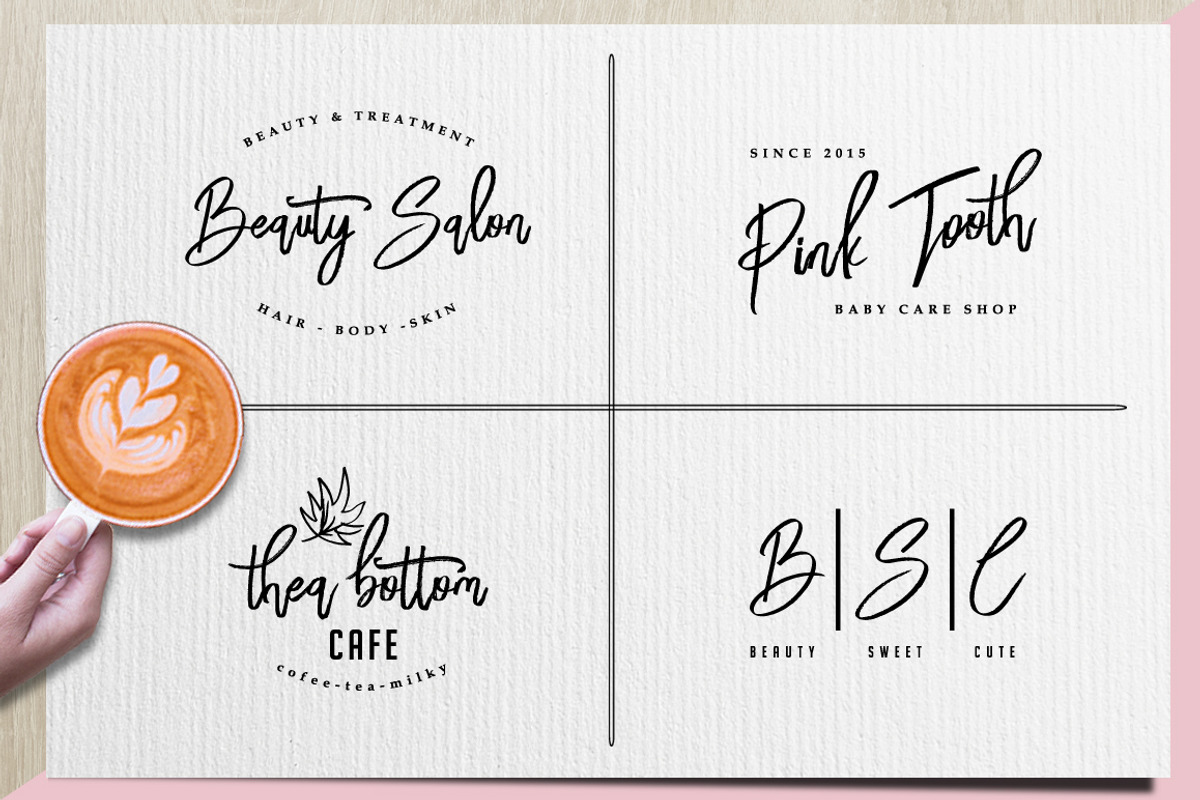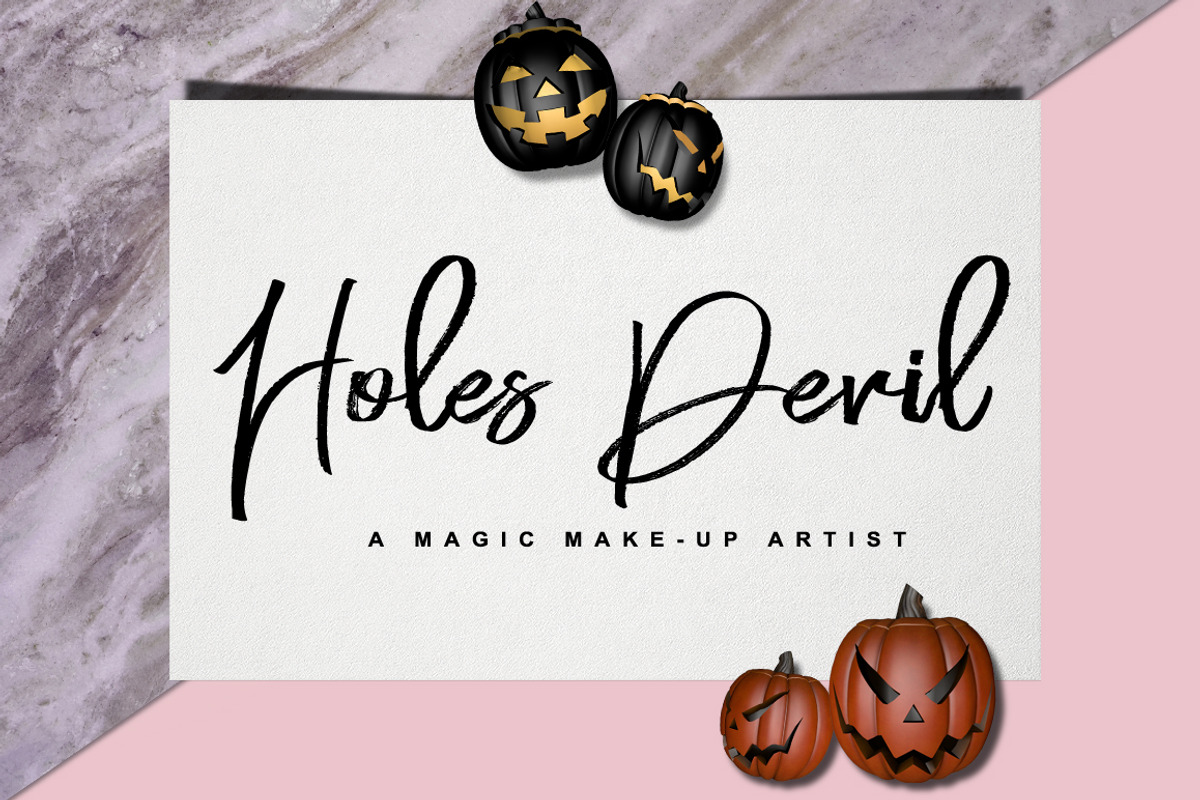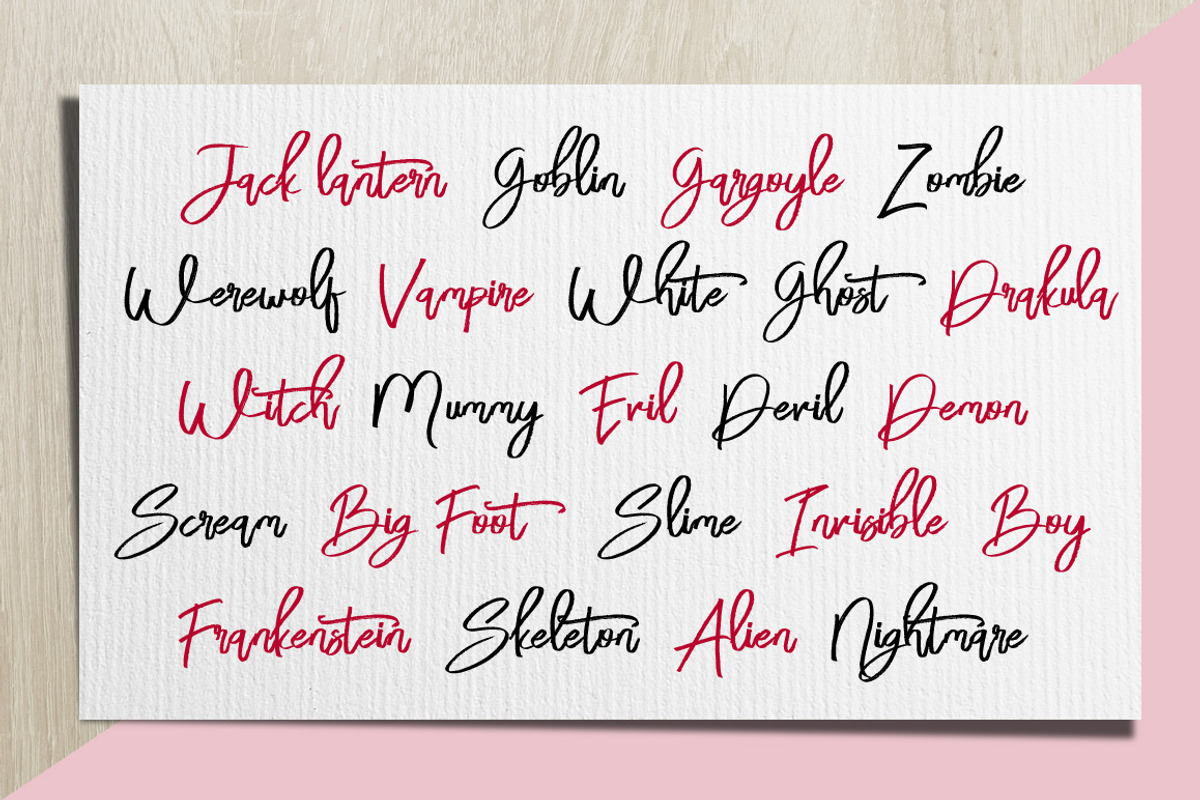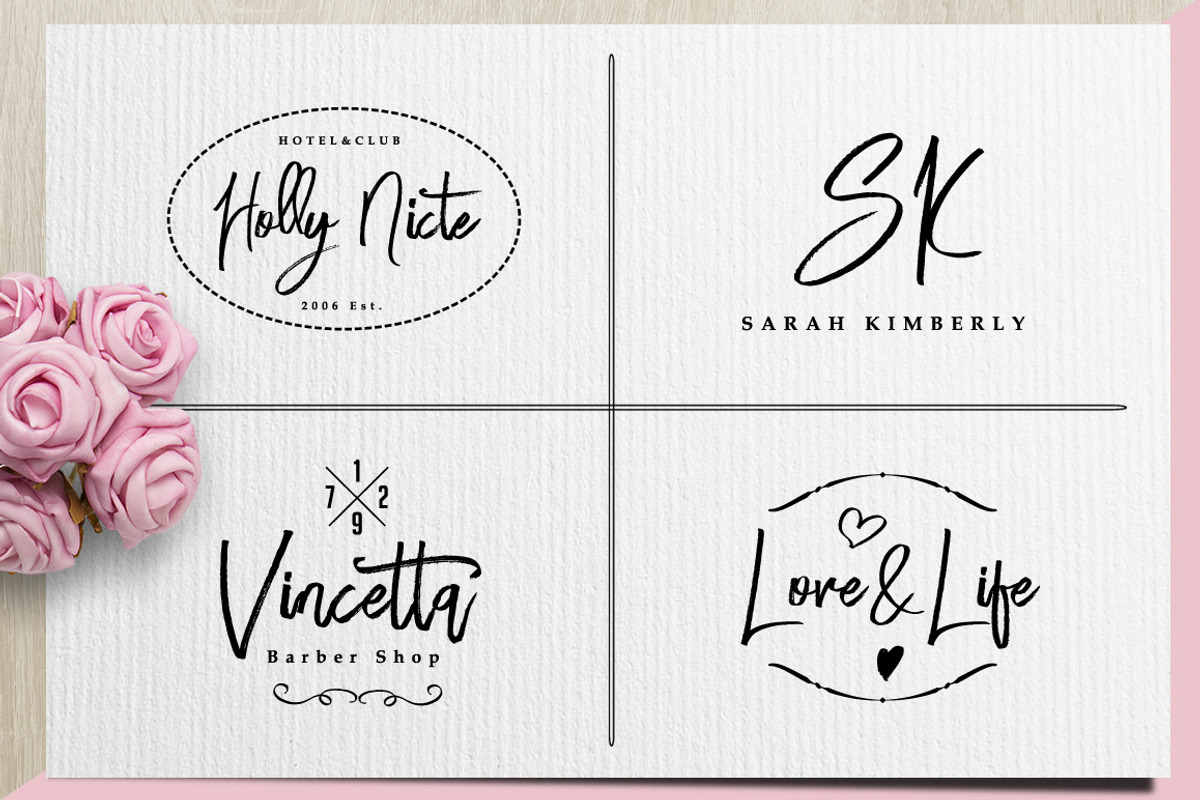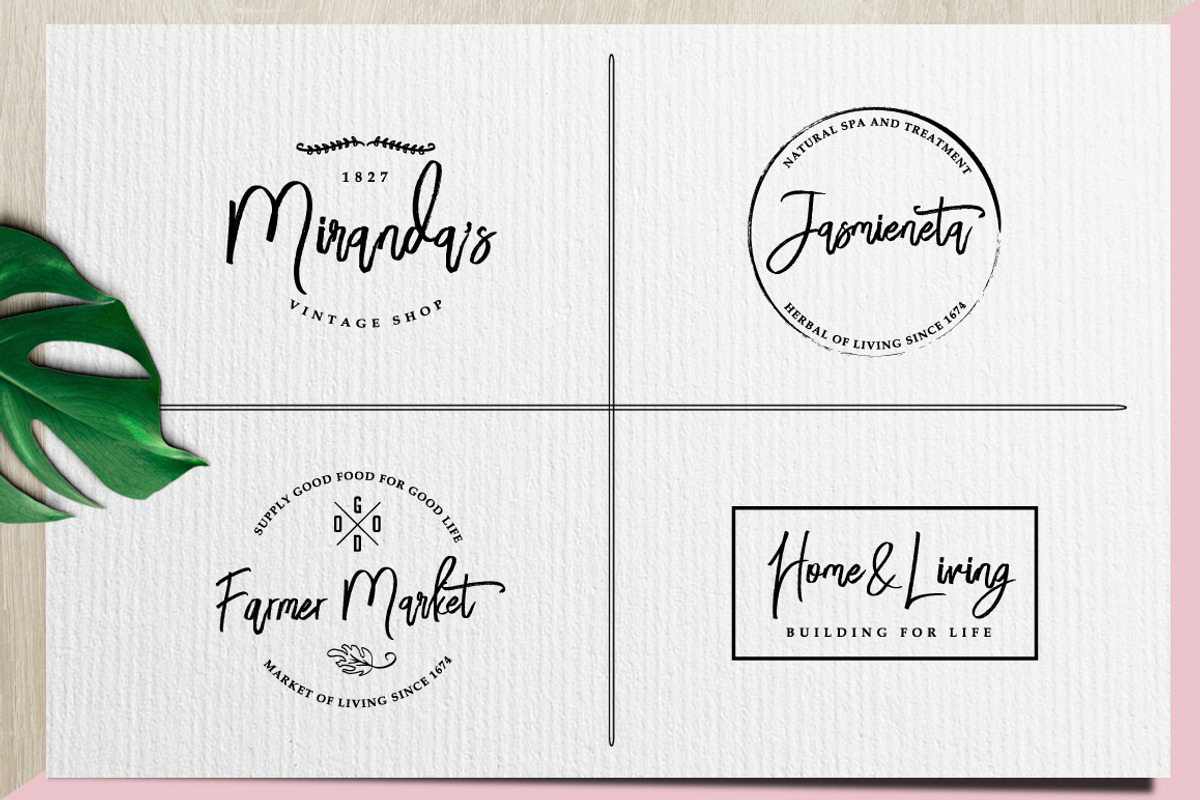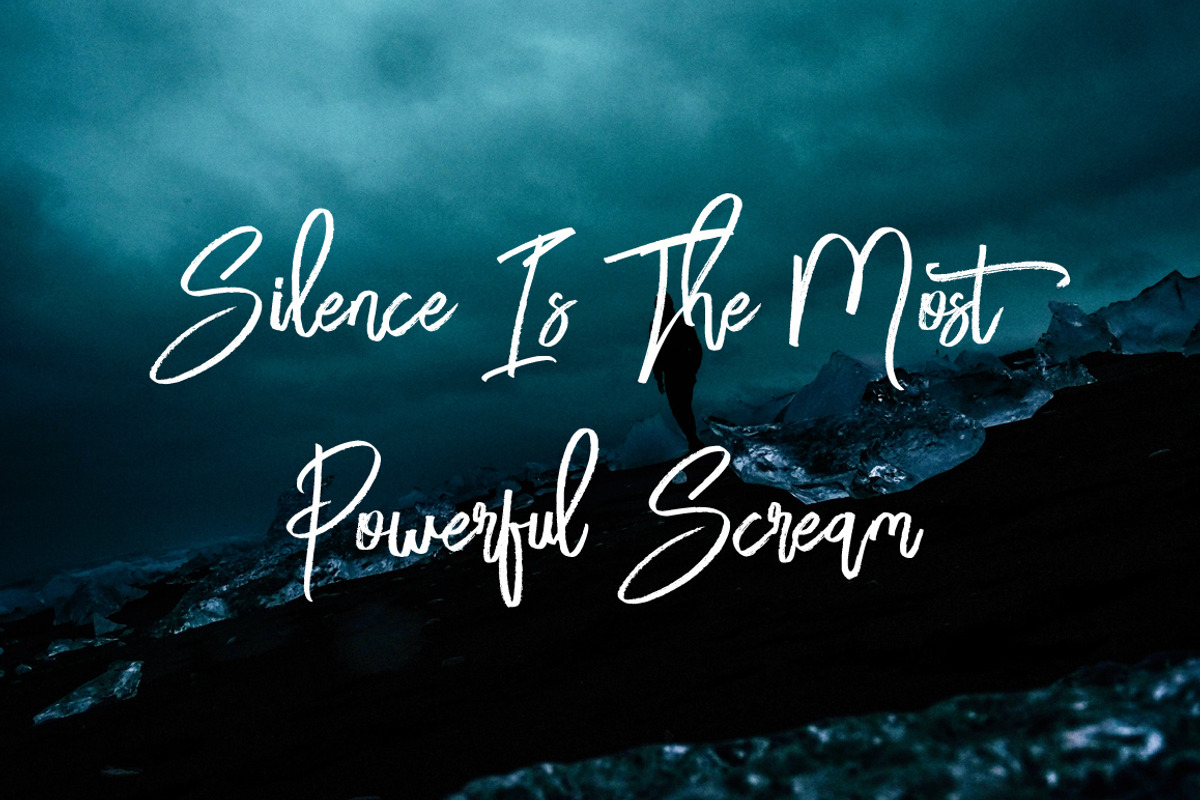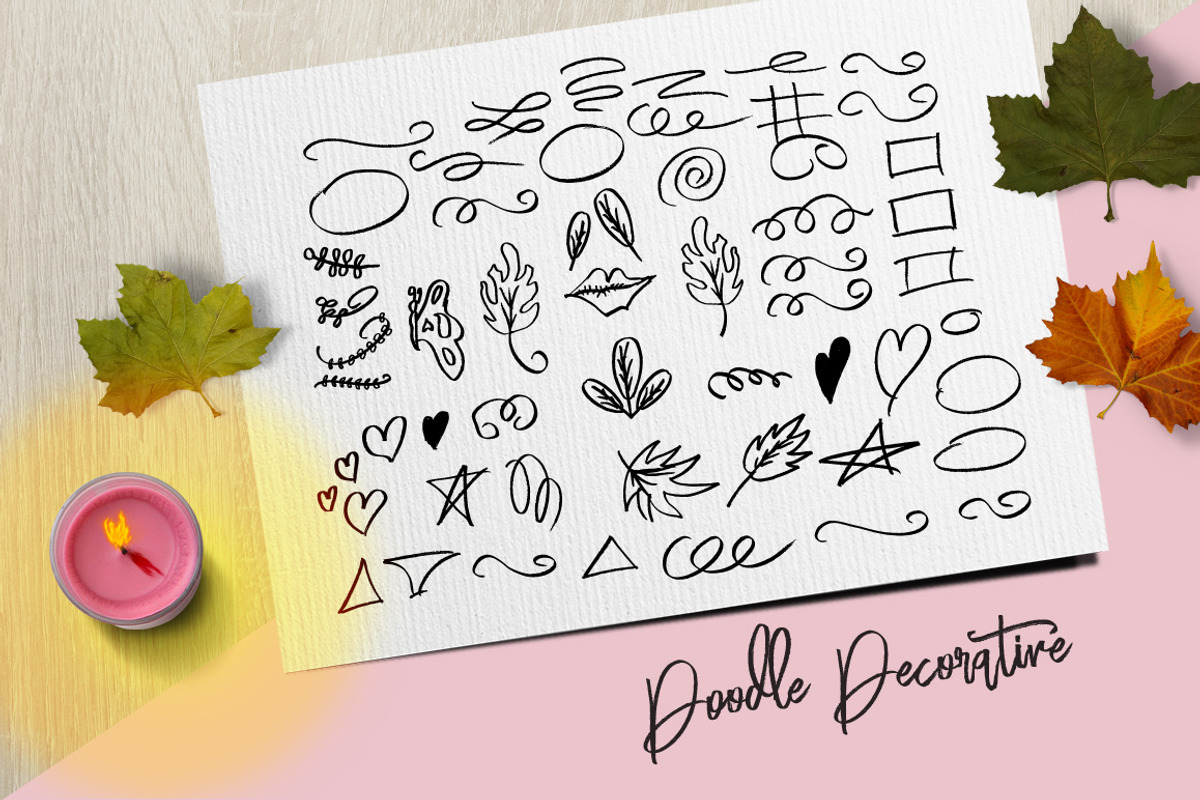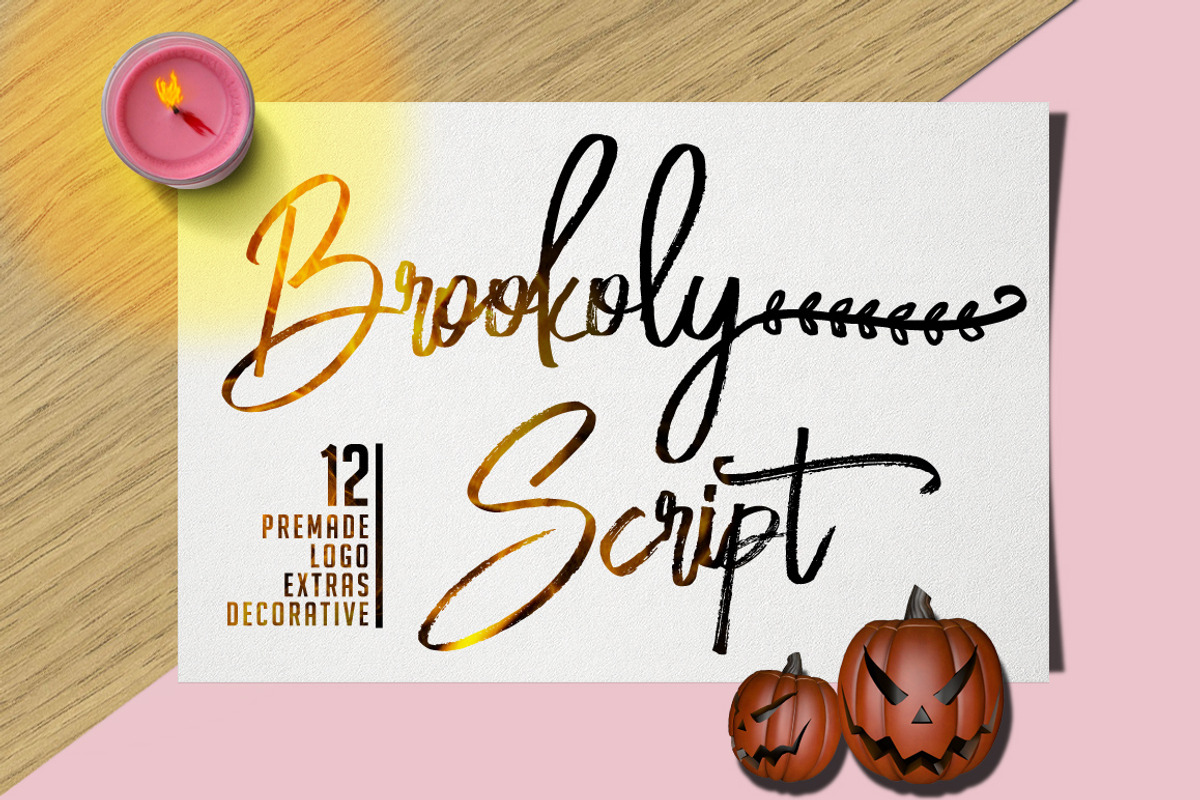
Brookoly Script - Handwritting Font
Bloomy Script is Dry Brush Script Font with handletter style, with unique script modern calligraphy include decorative doodles and 12 premade logos. Suitable for design, element design, wedding, event, t-shirt, logo, badges, sticker, and awesome work, etc...
Bloomy Script Decorative Doodles, There are swashes handwritting dry brush marker and decorative doodles for make type design perfect.